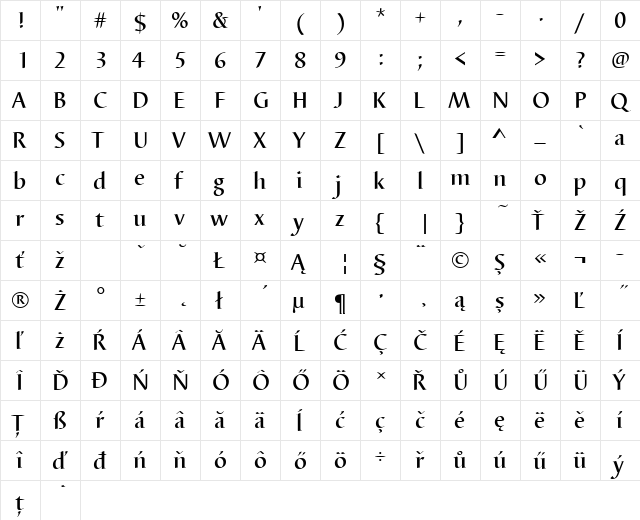
BarbedorTEEMed Regular
BarbedorTEEMed takes a measured approach to typography — its balanced proportions and neutral character make it a reliable workhorse for both digital and print work.